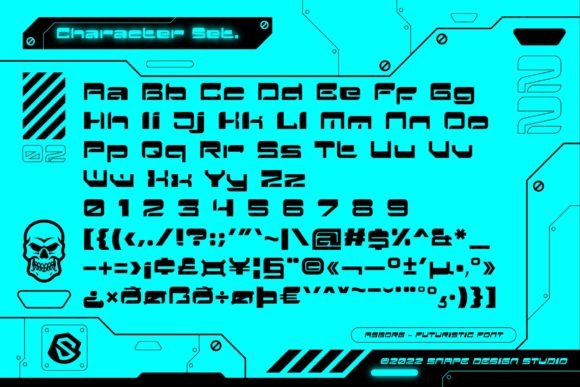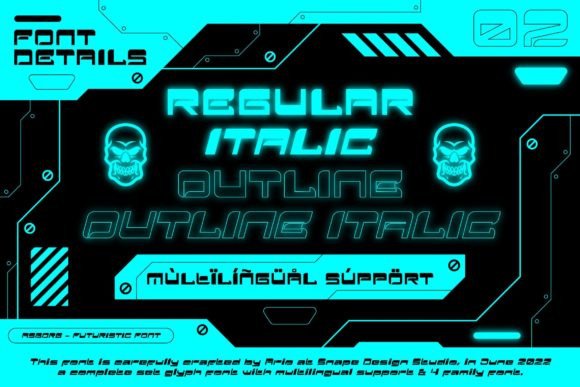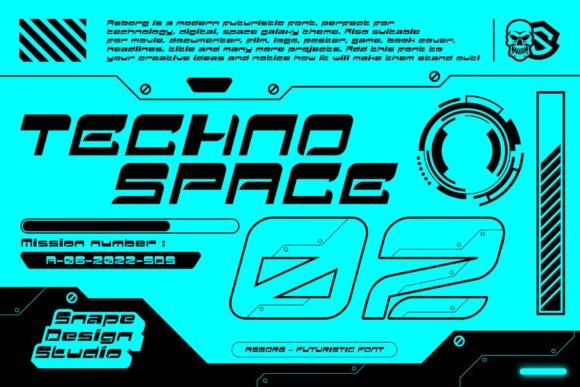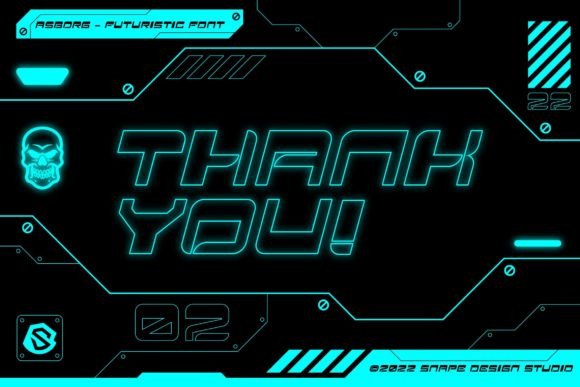
The Perfect Font for the Modern Visionary
Have you ever been stuck brainstorming a new project, and suddenly, a burst of inspiration hits you? Maybe it’s the perfect blend of colors, or perhaps it’s the unique combination of shapes and textures that sparks your creativity. Whatever it is, it’s that moment that makes all the difference. For designers, this moment is crucial, and it’s exactly what Asborg Font is designed to evoke.
A modern and futuristic display font, Asborg Font is the perfect addition to any project that needs to stand out. Whether you’re working on a movie title, a logo, or a poster for a new game, Asborg Font is the key to unlocking your full creative potential. Its sleek and futuristic design makes it a valuable asset for designers, allowing them to add an extra layer of depth and visual interest to their projects.
Asgborg Font Key Features
- Font Family: Asborg Font is a sans-serif font family designed to provide a clean and modern look.
- Character Set: The font includes a comprehensive character set, including Latin, Cyrillic, and Greek alphabets, as well as a wide range of punctuation and symbol glyphs.
- Font Size and Resolution: Designed to be highly scalable, Asborg Font is available in font sizes ranging from 8 to 144 points, with optimal legibility at resolutions up to 300 dpi.
- Unique Characteristics: The font features a distinctive x-height and a subtle italic angle, giving it a unique and professional look that is ideal for corporate branding and editorial content.
- Language Support: Asborg Font supports over 200 languages, making it an excellent choice for global brands and publications that require a font that can adapt to diverse linguistic needs.
Review of Asborg Font
As a designer, I was excited to try out the Asborg font. ✨ The font’s unique blend of modern and vintage elements immediately caught my eye. The bold, geometric shapes and crisp lines give it a high-tech feel that’s perfect for futuristic designs. ✨ I also appreciate the font’s versatility, as it works well in both digital and print applications.
One of the standout features of Asborg is its robust character set, which includes a wide range of languages and special characters. ✨ This makes it an excellent choice for international designs, and it’s great to see a font that’s so inclusive.
- ⚠️ The font’s bold weight can feel a bit too aggressive in some contexts, and may not be suitable for every design project.
- ⚠️ Some users may find the font’s geometric shapes a bit too busy or distracting, particularly in text-heavy designs.
Overall, I’m impressed with the Asborg font. It’s a solid choice for designers looking for a modern, high-tech font that’s versatile and inclusive. While it may have some limitations, I think the benefits far outweigh the drawbacks. With a little experimentation, I’m confident that Asborg will become a go-to font for many designers.
Tips for Getting the Most Out of Asborg Font
The Asborg font is ideal for use in logos, titles, and headings due to its modern and sleek design. To get the most out of the font, use it in combination with other fonts to create a visually appealing contrast. Experiment with different font sizes, styles, and colors to find the perfect balance for your design.
The Asborg font is commonly used in:
- Titles and headings in presentations and documents
- Editorial and publishing materials